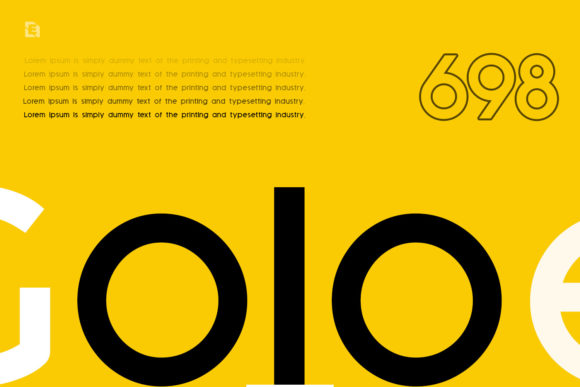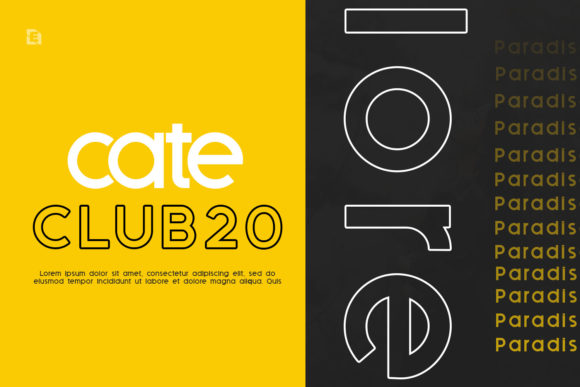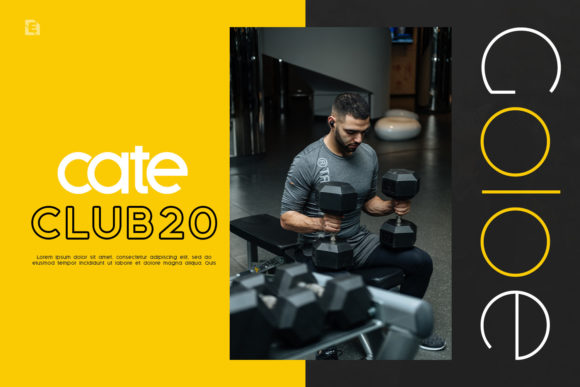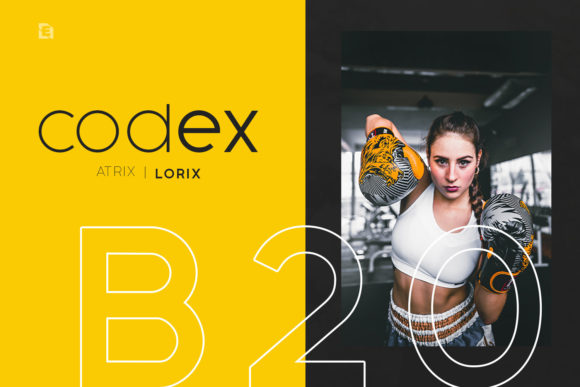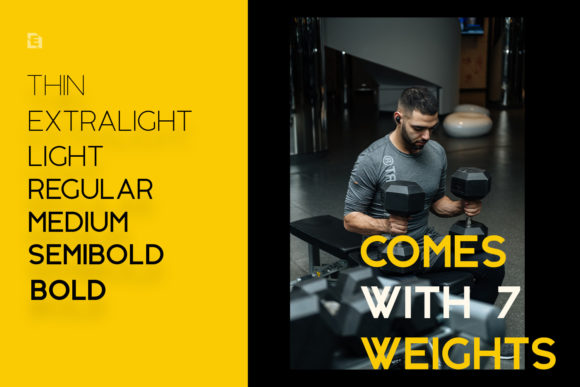
I still remember the frustration of working on a project, hours spent crafting the perfect design, only to realize that the font I chose wasn’t quite right. The client wanted something modern and sleek, but the font I had selected was, well, a bit of a mess. It was a moment of panic, but it led me to discover the Goloe Font – a minimal and modern display font that has become a staple in my design toolkit.
First Impressions: A Love Affair with Goloe
Goloe is a stunning font that can easily elevate your creative projects. Here’s what I love about it:
- ✨ Modern and sleek design: Goloe has a contemporary feel that’s perfect for projects that require a bit of sophistication.
- ✅ Highly versatile: This font can be used for a wide range of projects, from branding and advertising to packaging and web design.
- 🔥 Attention-grabbing: Goloe is a display font that’s designed to make a statement. It’s perfect for headlines, titles, and other attention-grabbing elements.
The Honest Review: Not Perfect, But Almost
While Goloe is an excellent font, it’s not without its quirks. Here are a few things to keep in mind:
- 🤔 Limited use for body text: Goloe is a display font, which means it’s not ideal for long blocks of text. It’s best used for headlines and titles.
- ⚠️ Some characters may not work well in all contexts: As with any font, some characters may not work well in certain contexts. Be sure to test the font thoroughly before committing to it.
The Designer Behind Goloe: A Backstory
Goloe was designed by a team of typographers who wanted to create a font that was both modern and timeless. The font’s clean lines and geometric shapes make it perfect for a wide range of design applications. According to the designers, Goloe was inspired by the intersection of technology and art, and is meant to evoke a sense of innovation and creativity.
| Font Name | Goloe Font |
| Author | Design Stag |
| What is Goloe font? | Goloe is a minimal and modern display font that’s perfect for headings, titles, and other attention-grabbing elements. |